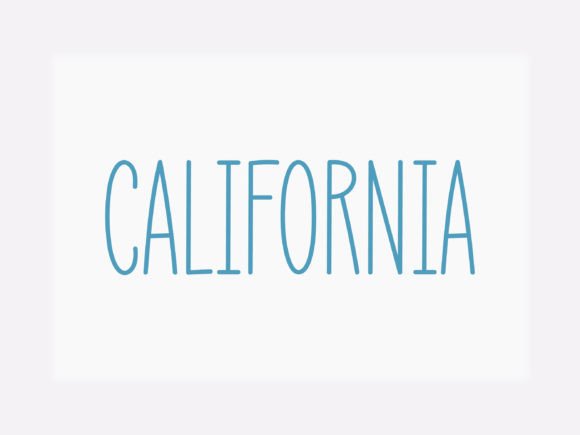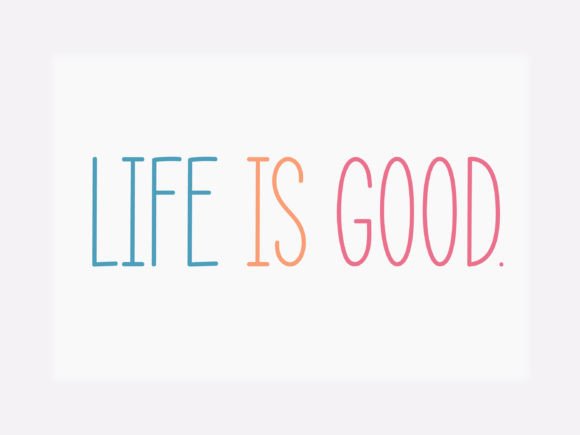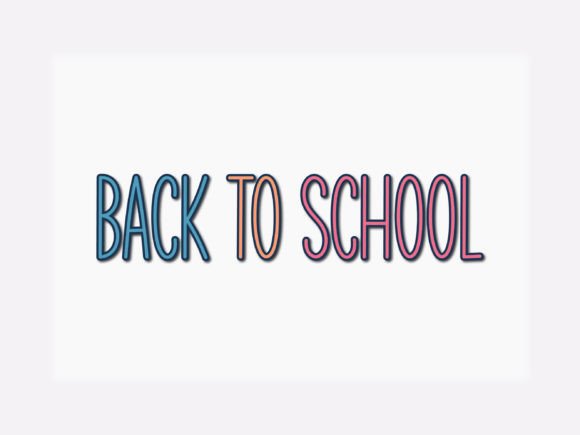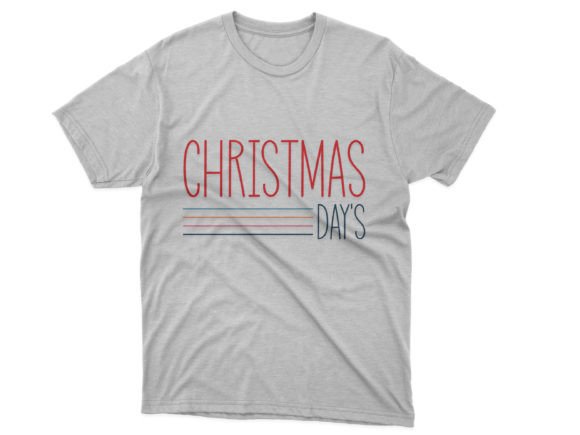
Dreaming Designer Font: Elevate Your Design with a Touch of Elegance
Are you on the hunt for a font that adds a dash of sophistication and personality to your designs? Look no further than the Dreaming Designer Font. This eye-catching, handmade font boasts clean lines and a minimalist design, making it the perfect choice for headlines and short titles. Its unique blend of handwriting style and glowing letters will instantly elevate your design and leave a lasting impression on your audience.
The Perfect Balance of Style and Professionalism
The Dreaming Designer Font strikes the perfect balance between style and professionalism. Its handwriting style gives your design a personal touch, while its glowing letters maintain a level of sophistication that’s hard to achieve with traditional fonts. Whether you’re working on a branding project, creating social media graphics, or designing a website, this font is sure to make your content stand out.
Key Features of the Dreaming Designer Font
- Handmade with love: Each letter has been carefully crafted to give the font a unique, handwriting feel that’s sure to capture your audience’s attention.
- Clean lines and minimalist design: The font’s clean lines and minimalist design make it perfect for headlines and short titles, ensuring your message is conveyed clearly and concisely.
- Glowing letters: The font’s glowing letters add a touch of sophistication and elegance, making it ideal for designs that require a level of professionalism.
- Versatile: The Dreaming Designer Font is versatile and can be used across various design projects, from branding and advertising to web design and social media.
Why Choose the Dreaming Designer Font?
With so many fonts available, why choose the Dreaming Designer Font? Here are just a few reasons why designers and crafters are falling in love with this font:
- Unique and eye-catching: The font’s handmade, glowing letters make it truly unique and eye-catching, ensuring your design stands out in a crowded marketplace.
- Easy to read: Despite its creative design, the font remains easy to read, making it perfect for headlines and short titles.
- Customizable: The font is highly customizable, allowing you to adjust the size, color, and style to fit your design needs.
- Time-saving: With the Dreaming Designer Font, you can create stunning designs in no time, saving you hours of work and allowing you to focus on other creative projects.
How to Use the Dreaming Designer Font in Your Design
Using the Dreaming Designer Font in your design is easy. Here are a few tips to get you started:
- Pair it with a neutral font: Pair the Dreaming Designer Font with a neutral font to create a beautiful contrast and add visual interest to your design.
- Experiment with colors: The font’s glowing letters look stunning in a range of colors. Experiment with different hues to find the perfect match for your brand.
- Use it sparingly: While the font is eye-catching, it’s best to use it sparingly to avoid overwhelming your design. Use it for headlines and short titles, and a neutral font for body text.
The Dreaming Designer Font is a game-changer for designers and crafters looking to elevate their designs with a touch of elegance. Its unique blend of handwriting style and glowing letters makes it perfect for headlines and short titles, while its versatility and customizability make it suitable for a range of design projects. Whether you’re working on a branding project, creating social media graphics, or designing a website, this font is sure to make your content stand out. So why wait? Give the Dreaming Designer Font a try today and take your design to the next level!